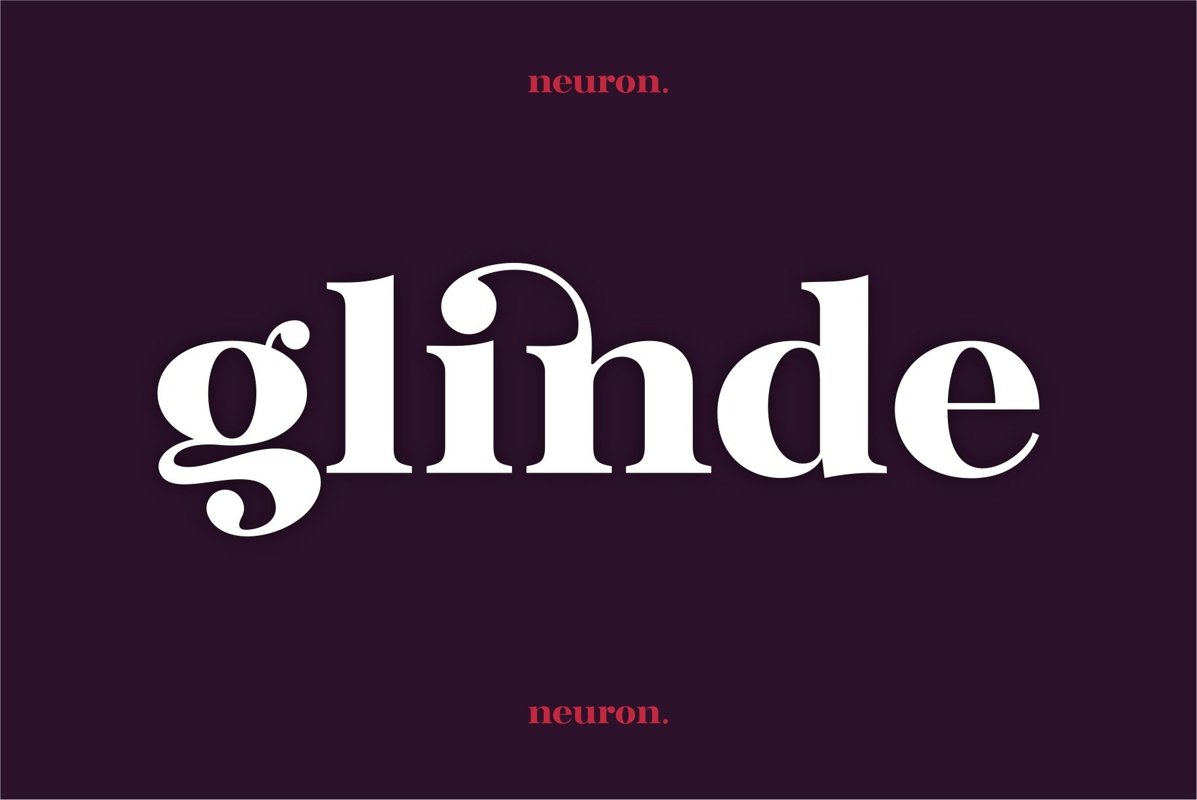
Glinde Ligature Font
Glinde is a ligature serif font. A bold contrast typeface with extra ligature option and some stylistic. It has uppercase, lowercase, numbers and punctuation. Ignite your next project with Glinde!